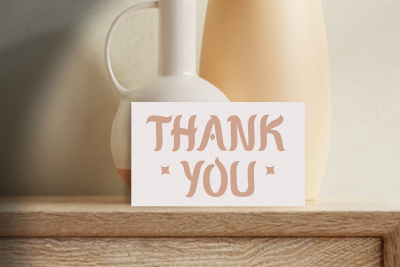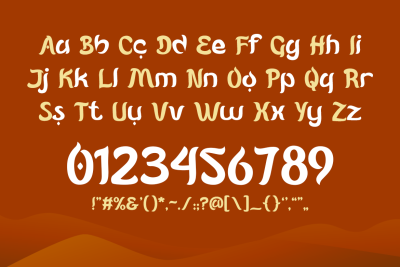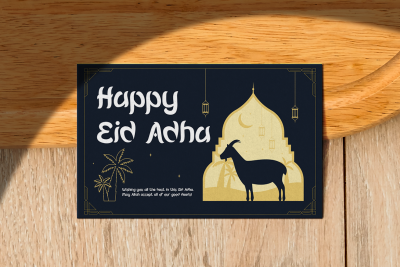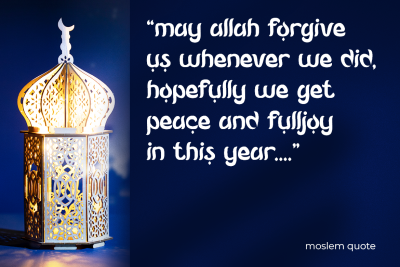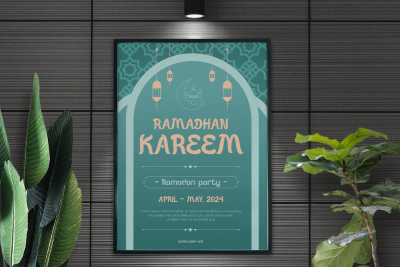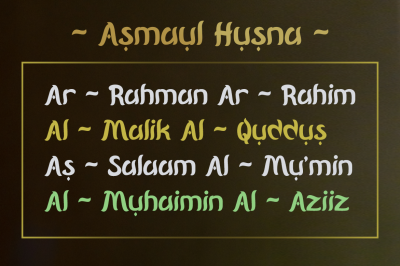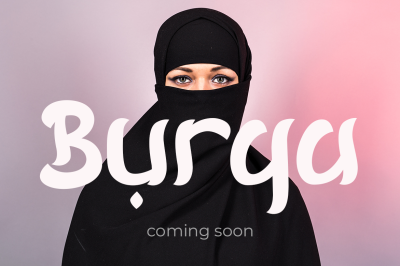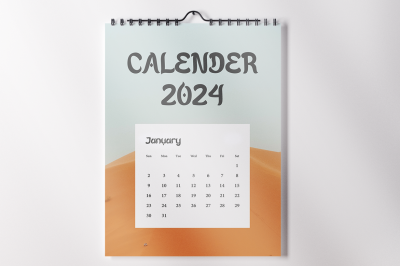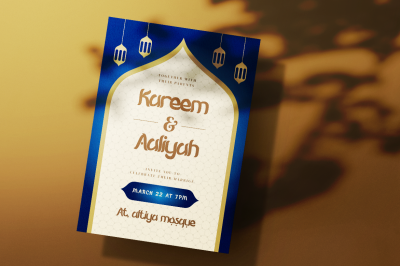
Qalasenja
Instagram Font Qalasenja is an elegant and captivating typeface that brings a unique personality to your designs. With its fluid, handcrafted strokes and stylish curves, this font beautifully captures cultural heritage while maintaining a modern touch. Moreover, its smooth transitions and decorative details make it perfect for social media posts, branding, and digital content. The aesthetic appeal of Qalasenja makes it ideal for designers seeking a sophisticated yet approachable visual identity.
Inspired by traditional calligraphy and contemporary trends, Qalasenja embodies warmth and creativity. Additionally, the balanced letterforms and distinctive styling add charm, making it a great choice for both professional and personal projects. Whether used for Instagram captions, story highlights, or marketing campaigns, this font ensures your text stands out beautifully.
Instagram Font Qalasenja Suitable For:
1. Social Media & Influencers
Qalasenja is perfect for Instagram influencers, content creators, and social media managers. Whether for captions, quotes, or promotions, this font enhances engagement and aesthetic appeal.
2. Branding & Logo Design
Businesses and entrepreneurs seeking a modern yet sophisticated brand image will benefit from Qalasenja. Furthermore, its stylish curves and handcrafted feel work well for luxury brands, boutiques, and artisanal businesses.
3. Event Invitations & Digital Cards
Qalasenja is a great choice for wedding invitations, greeting cards, and personalized messages. In addition, its elegant and expressive nature adds warmth to special occasions.
4. Website & Blog Design
For bloggers and web designers, Qalasenja offers engaging typography that enhances readability while maintaining an artistic touch. It works well for headers, call-to-action elements, and highlight text.
5. Fashion & Lifestyle Industry
Fashion designers, beauty brands, and lifestyle businesses can leverage Qalasenja for promotional campaigns, advertisements, and packaging. As a result, its stylish presence leaves a lasting impression.
Instagram Font Qalasenja is the perfect choice for creatives who want to enhance their designs with a stylish and captivating typeface. Whether for digital or print use, its versatility makes it a must-have for anyone looking to improve visual storytelling.